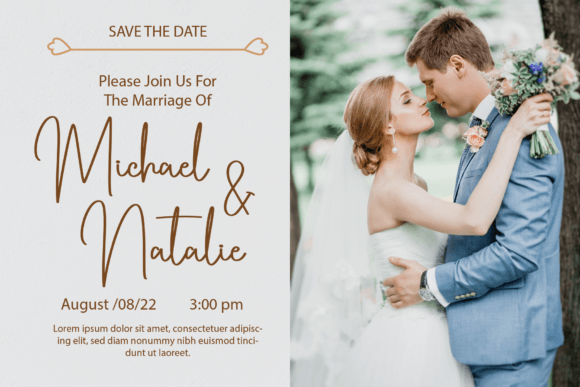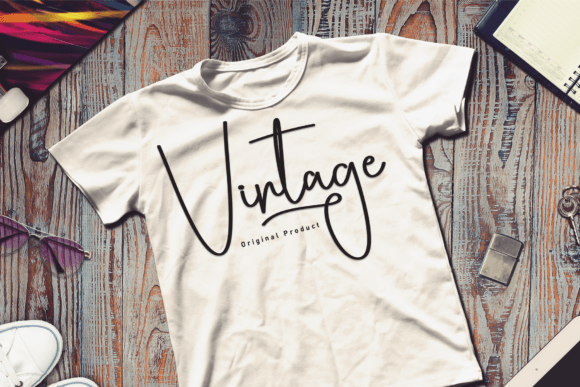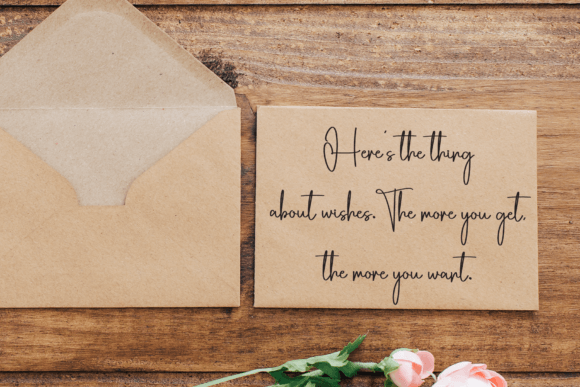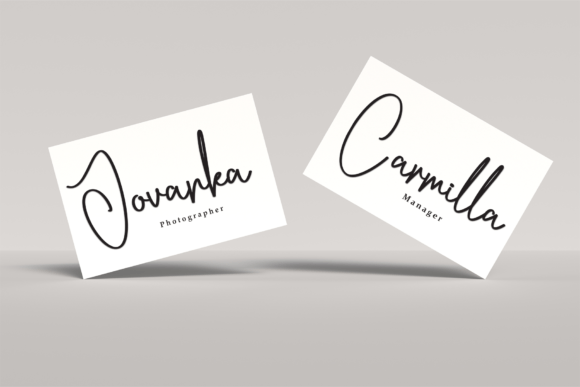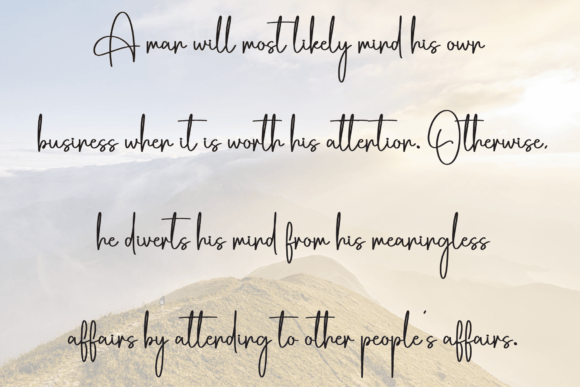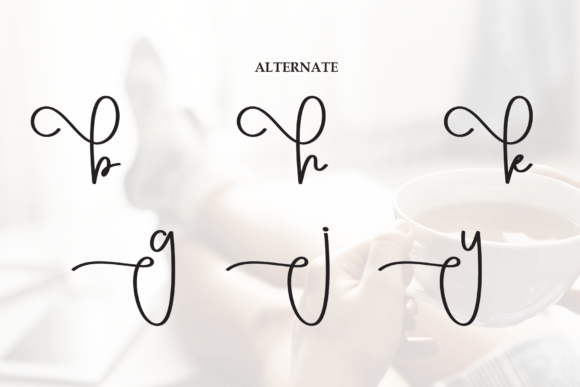
Introducing Breakday Font: The Timeless Handwritten Font for Stunning Designs
Are you a designer or crafter looking for a font that can elevate your creative projects to the next level? Look no further than Breakday Font, a lovely and timeless handwritten font that’s perfect for creating eye-catching logos, branding, and quotes. With its unique and beautiful touch, Breakday Font is sure to make your design come alive!
The Characteristics of Breakday Font
Breakday Font is a handwritten font that exudes a sense of elegance and sophistication. Every letter has a distinct and beautiful touch, making it perfect for designs that require a personal and humanizing feel. The font’s timeless quality ensures that it will remain relevant and stylish for years to come, making it a great investment for designers and crafters.
Why Choose Breakday Font?
So, why should you choose Breakday Font for your design projects? Here are just a few reasons:
- Elegant and Sophisticated: Breakday Font has a elegant and sophisticated feel that’s perfect for designs that require a high-end look.
- Unique and Beautiful: Every letter in Breakday Font has a unique and beautiful touch, making it perfect for designs that require a personal and humanizing feel.
- Timeless: Breakday Font has a timeless quality that ensures it will remain relevant and stylish for years to come.
- Versatile: Breakday Font is perfect for a wide range of design projects, from logos and branding to quotes and more.
Using Breakday Font for Logo Design
Breakday Font is a great choice for logo design, thanks to its unique and beautiful touch. Here are a few tips for using Breakday Font to create a stunning logo:
- Keep it Simple: While Breakday Font is a beautiful font, it’s essential to keep your logo design simple and easy to read.
- Experiment with Colors: Breakday Font looks great in a variety of colors, so don’t be afraid to experiment and find the perfect color scheme for your logo.
- Play with Typography: Breakday Font is a versatile font that can be used in a variety of typography styles, from bold and playful to elegant and sophisticated.
Using Breakday Font for Branding
Breakday Font is also a great choice for branding, thanks to its timeless and elegant feel. Here are a few tips for using Breakday Font to create a stunning brand identity:
- Consistency is Key: Use Breakday Font consistently across all of your branding materials to create a cohesive and recognizable brand identity.
- Mix and Match: Breakday Font looks great when paired with other fonts, so don’t be afraid to mix and match to create a unique and eye-catching brand identity.
- Consider Your Audience: When using Breakday Font for branding, consider your target audience and adjust your design accordingly.
Tips and Tricks for Getting the Most out of Breakday Font
Here are a few tips and tricks for getting the most out of Breakday Font:
- Use it for Quotes: Breakday Font is perfect for quotes, thanks to its elegant and sophisticated feel.
- Experiment with Sizes: Breakday Font looks great in a variety of sizes, from small and delicate to large and bold.
- Pair it with Images: Breakday Font looks great when paired with images, so consider using it to add a touch of elegance to your designs.
In conclusion, Breakday Font is a lovely and timeless handwritten font that’s perfect for designers and crafters looking to create stunning designs. With its unique and beautiful touch, Breakday Font is sure to make your design come alive! Whether you’re creating a logo, branding, or quotes, Breakday Font is a great choice. So why wait? Download Breakday Font today and start creating your own stunning designs!